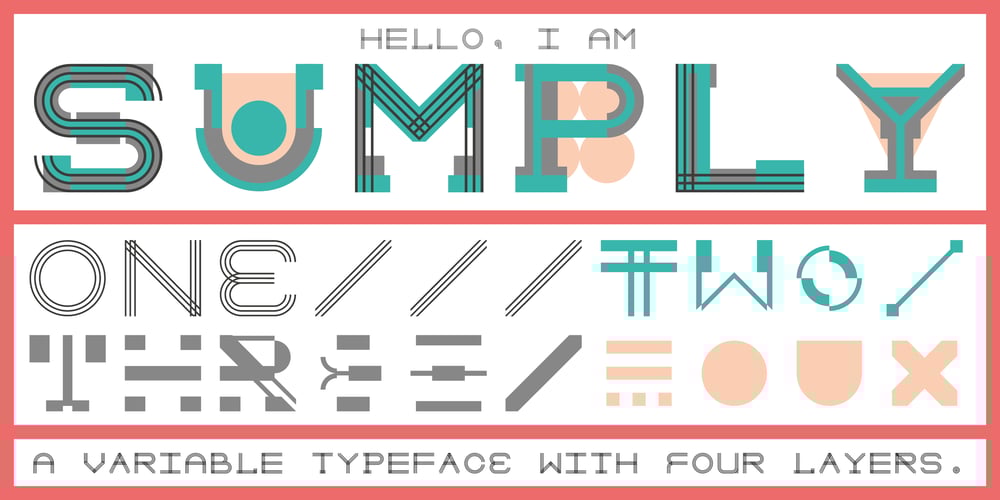
Sumply Font Family was designed by Martin Gnadt and published by Martin Gnadt. Sumply contains 4 styles and family package options. Sumply is a multi-layered type family based on geometric forms. A monospace display typeface which comes as a family of four. It is equipped with OpenType features and contextual alternatives to create a versatile and fresh output. Sumply initially was designed to be used in personalization processes in digital printing. By choosing the basic geometric cut (FOUR), patterns and various graphic elements can be created just by importing text variables into the indesign data merge. If combined with the other cuts the possibilities are sheer endless. Sumply was selected to be in the 2016 edition of Typodarium.